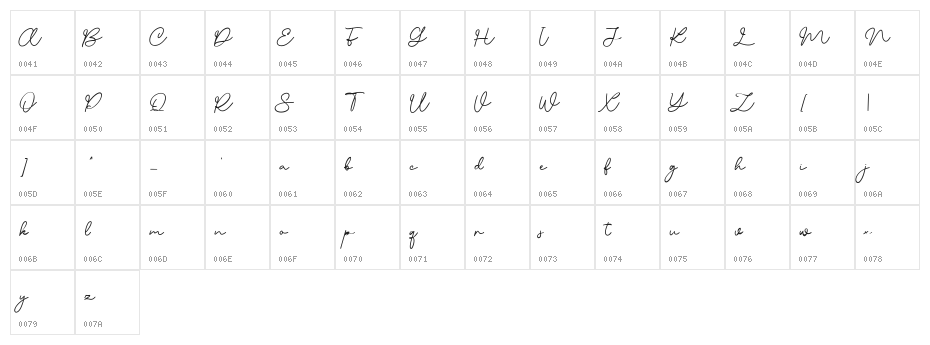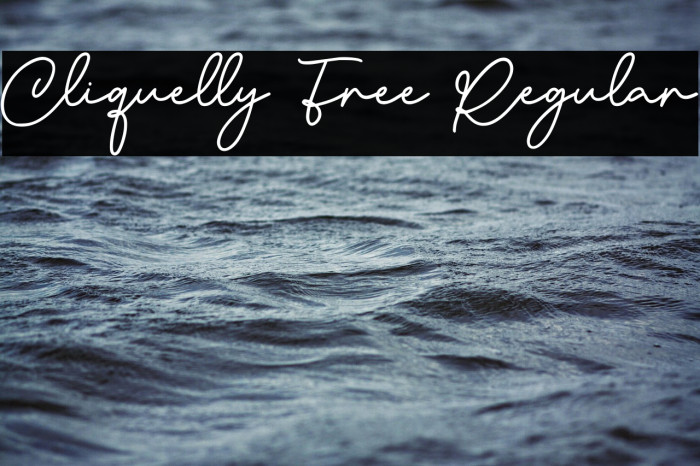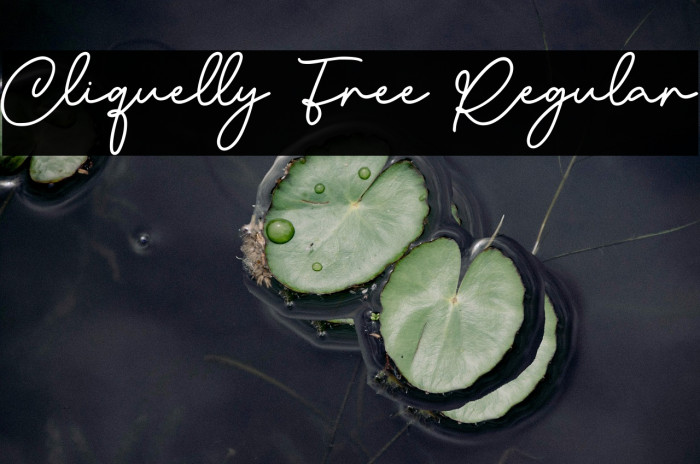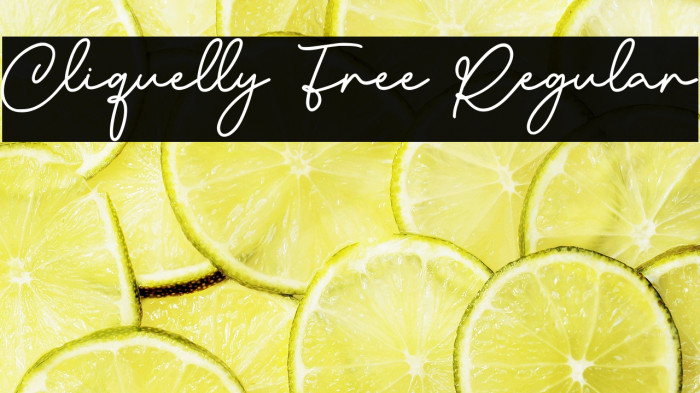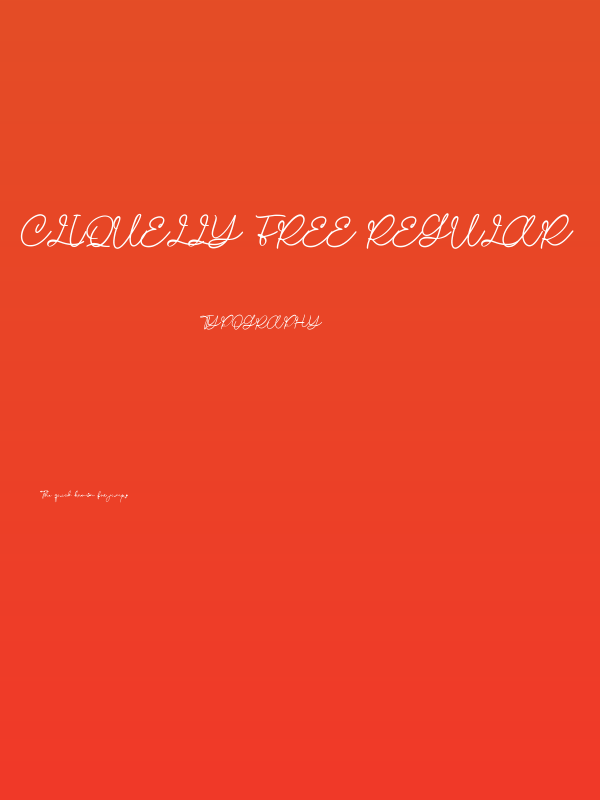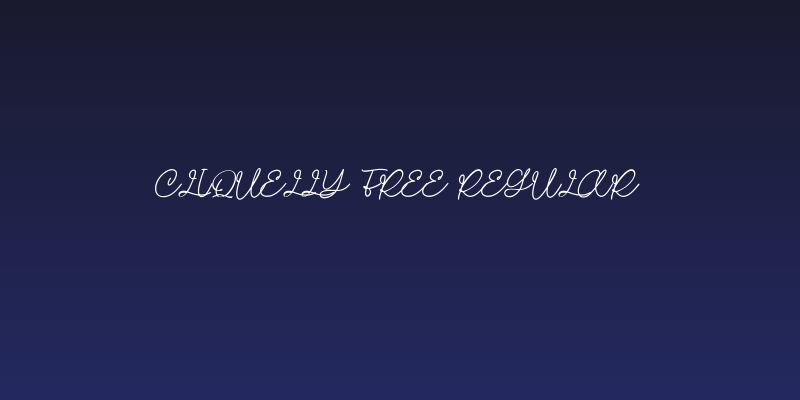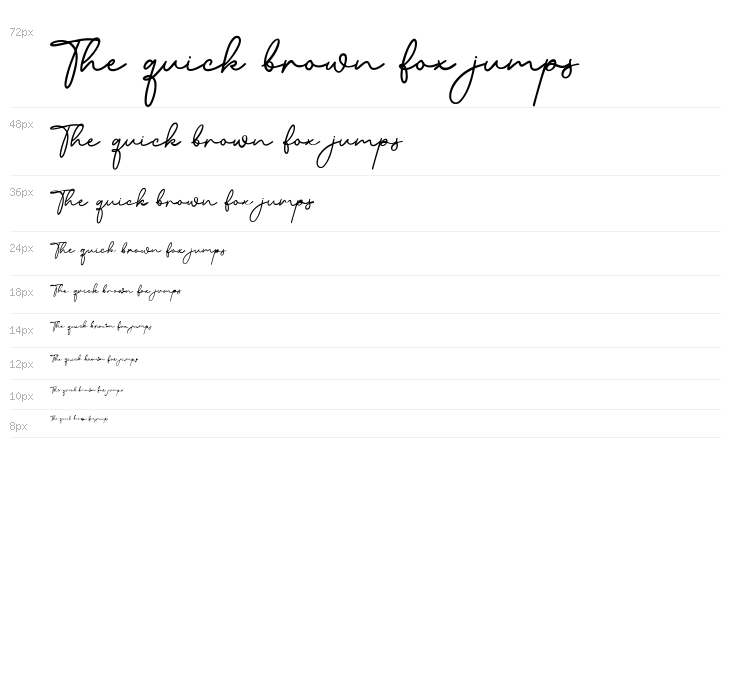
Cliquelly Free Regular Font
Cliquelly Free Regular Description
This font features an elegant, flowing script style that mimics natural handwriting. The characters are connected, creating a seamless and fluid appearance. The strokes are smooth and consistent, with a slight variation in thickness that adds a touch of sophistication. The uppercase letters are ornate and slightly larger, while the lowercase letters maintain a balanced and harmonious look. This font exudes a sense of grace and charm, making it ideal for projects that require a personal and artistic touch.